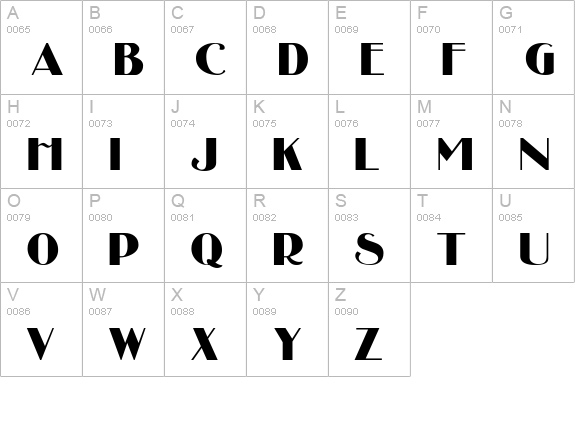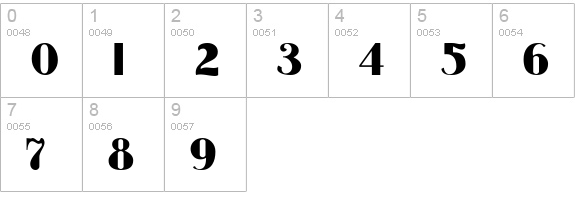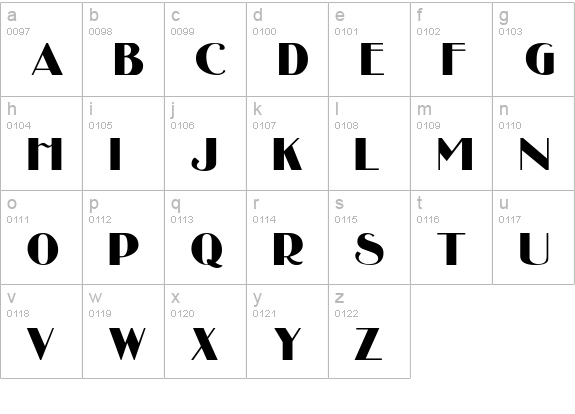
Introducing the charismatic and versatile Uncle Bob MF font, a true gem in the world of typography. This typeface exudes a remarkable blend of modern elegance and timeless appeal, making it the perfect choice for a wide range of design projects. Uncle Bob MF font captivates with its bold yet approachable presence, commanding attention and leaving a lasting impression. Its carefully crafted letterforms boast clean lines and balanced proportions, resulting in a harmonious and legible typeface that effortlessly communicates your message. This font's versatility knows no bounds, as it seamlessly adapts to various design applications. Whether you're designing a sleek corporate logo, an eye-catching advertisement, or a captivating book cover, Uncle Bob MF font will elevate your creations to new heights. One of the most remarkable features of Uncle Bob MF font is that it is freely available to download at FontsMarket.com. That's right—this incredible font can be yours without any cost! FontsMarket.com is your one-stop destination for high-quality fonts, and Uncle Bob MF is just one of the many treasures you'll find there. So why wait? Embrace the creative possibilities that Uncle Bob MF font offers and take your designs to the next level. Download this exceptional font today and unlock a world of captivating typography that will leave a lasting impression on your audience.